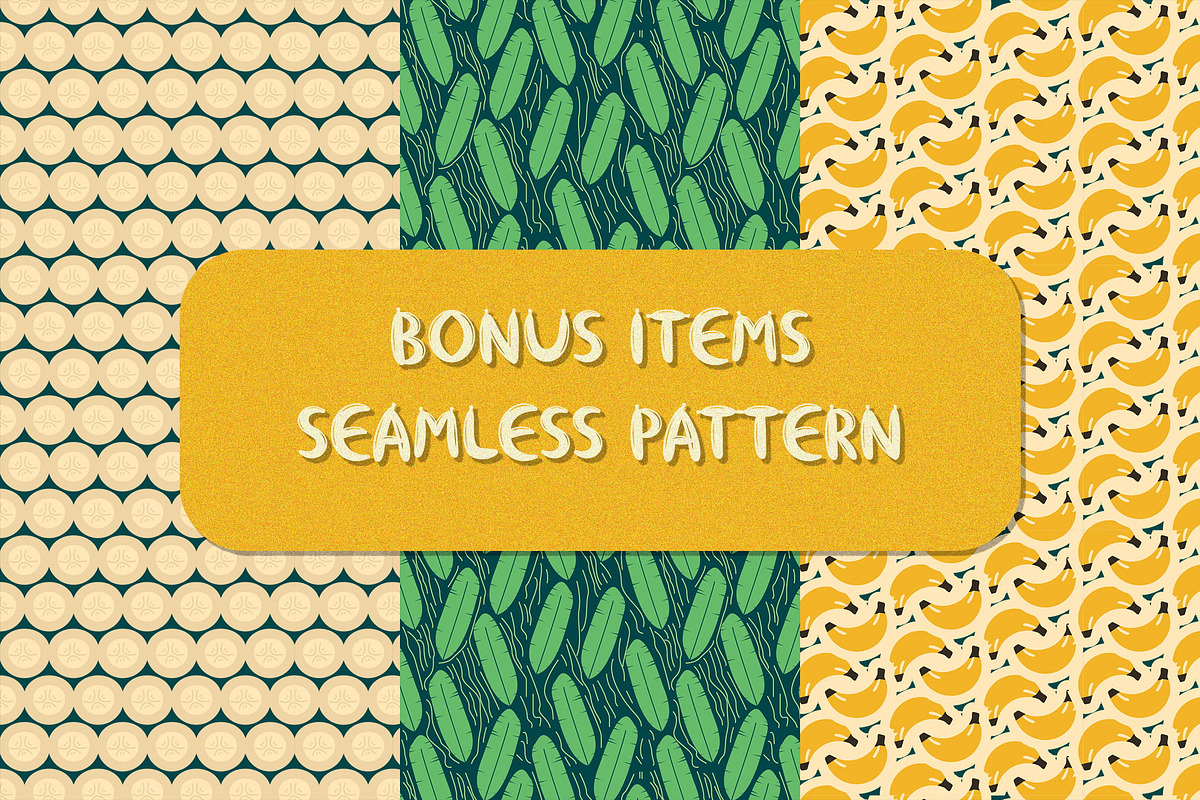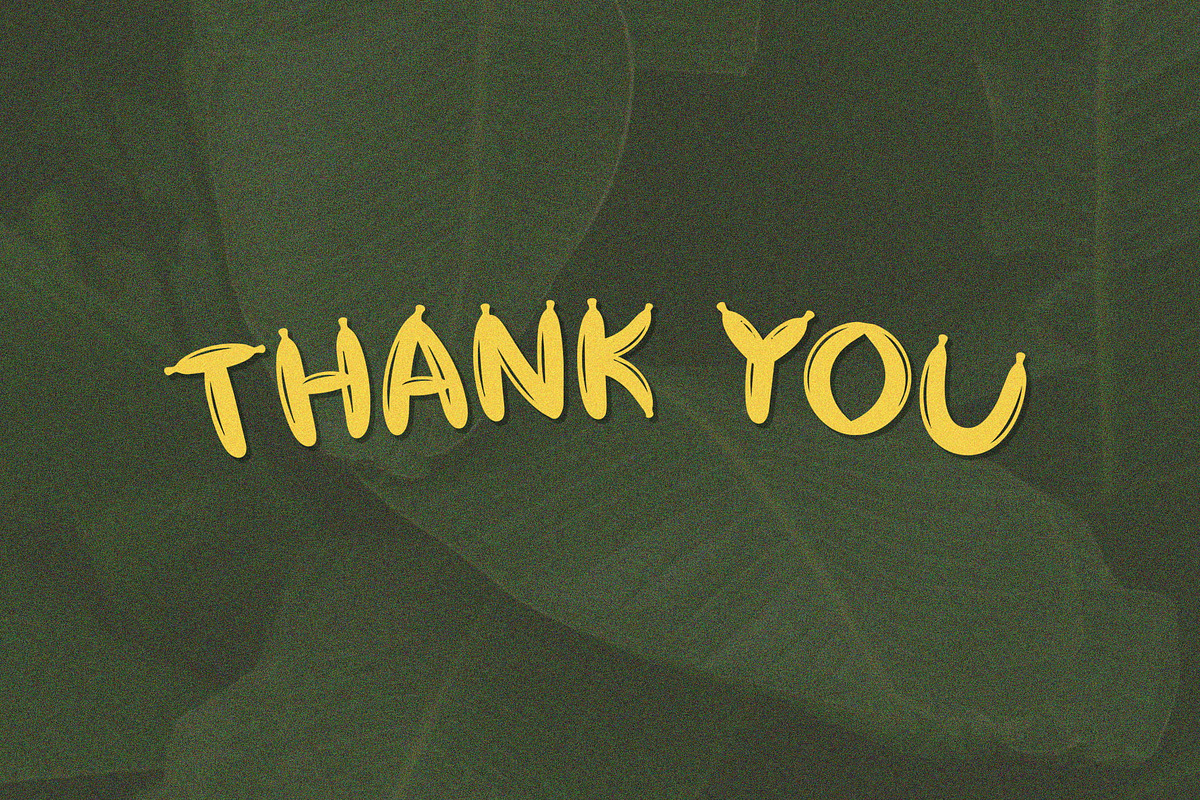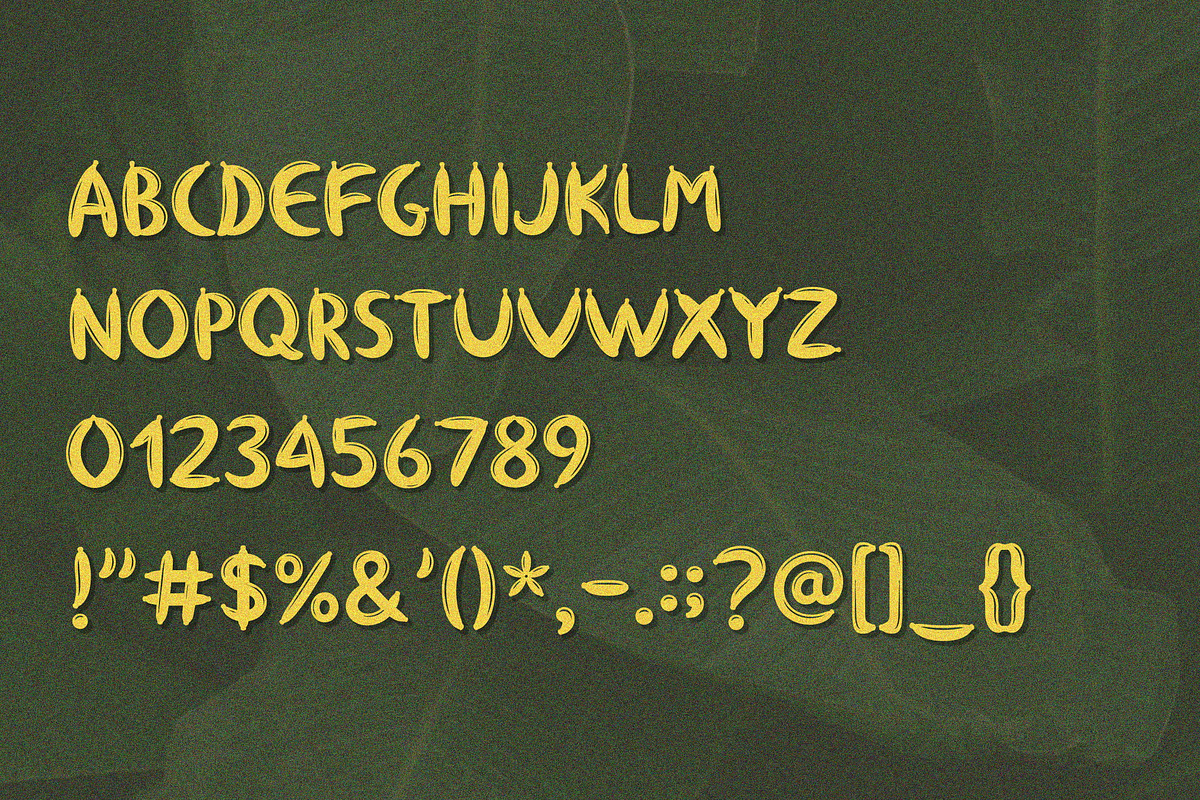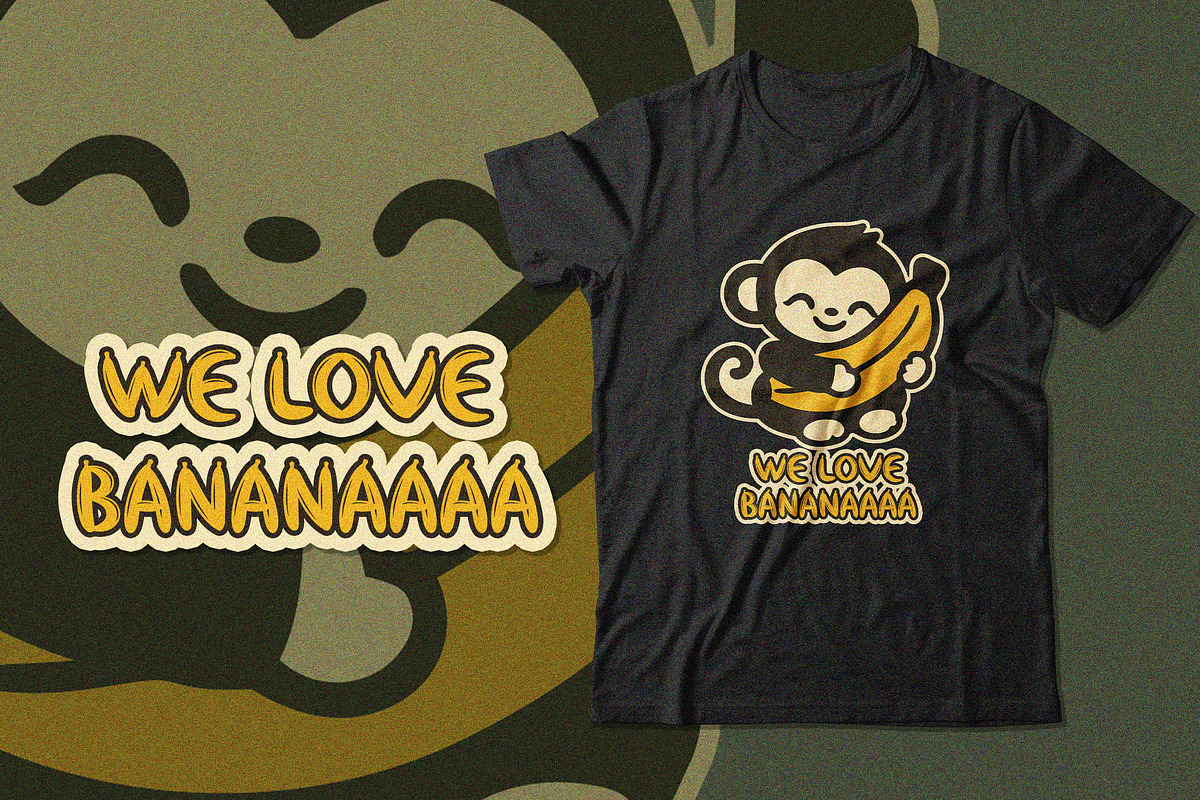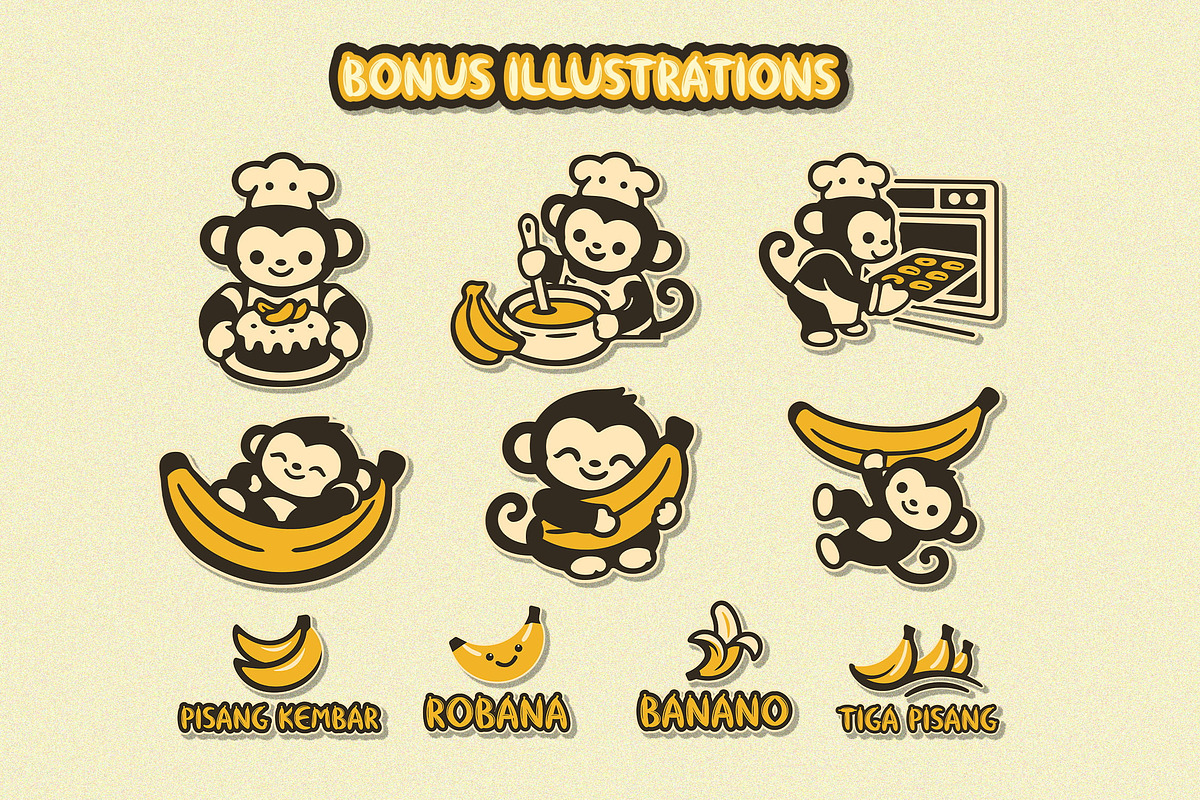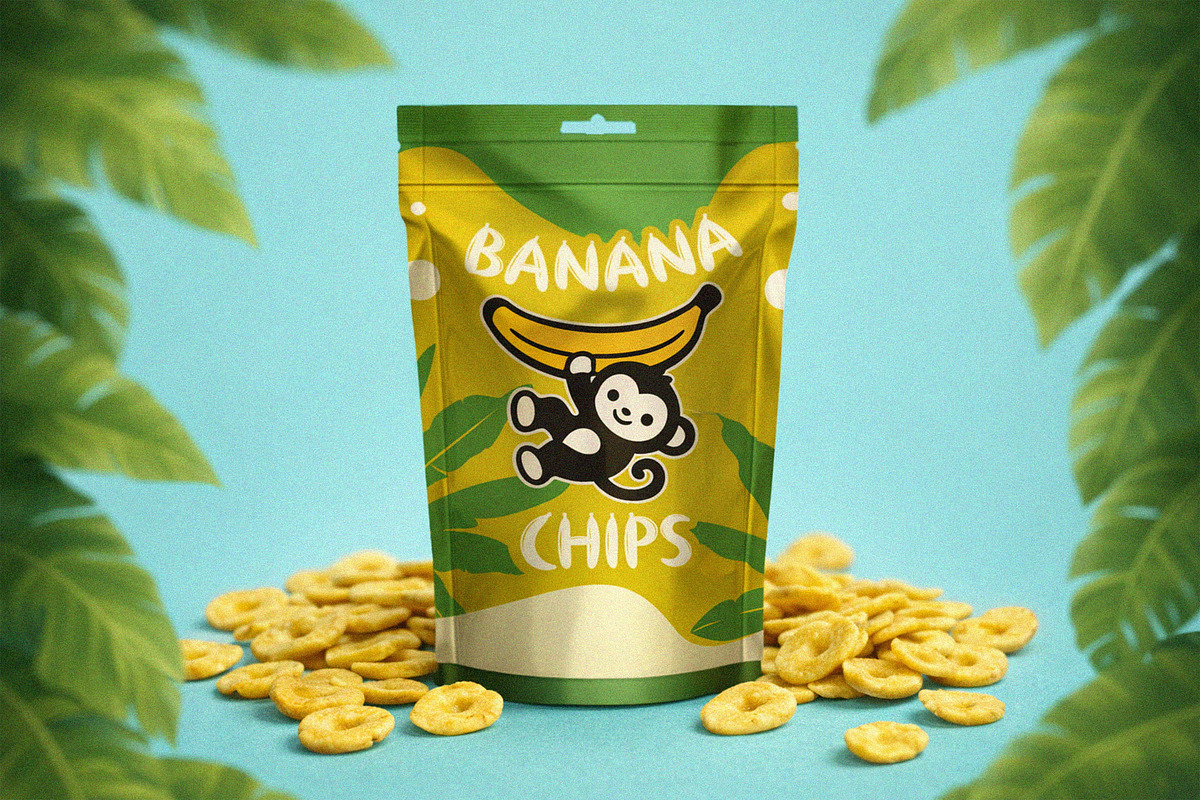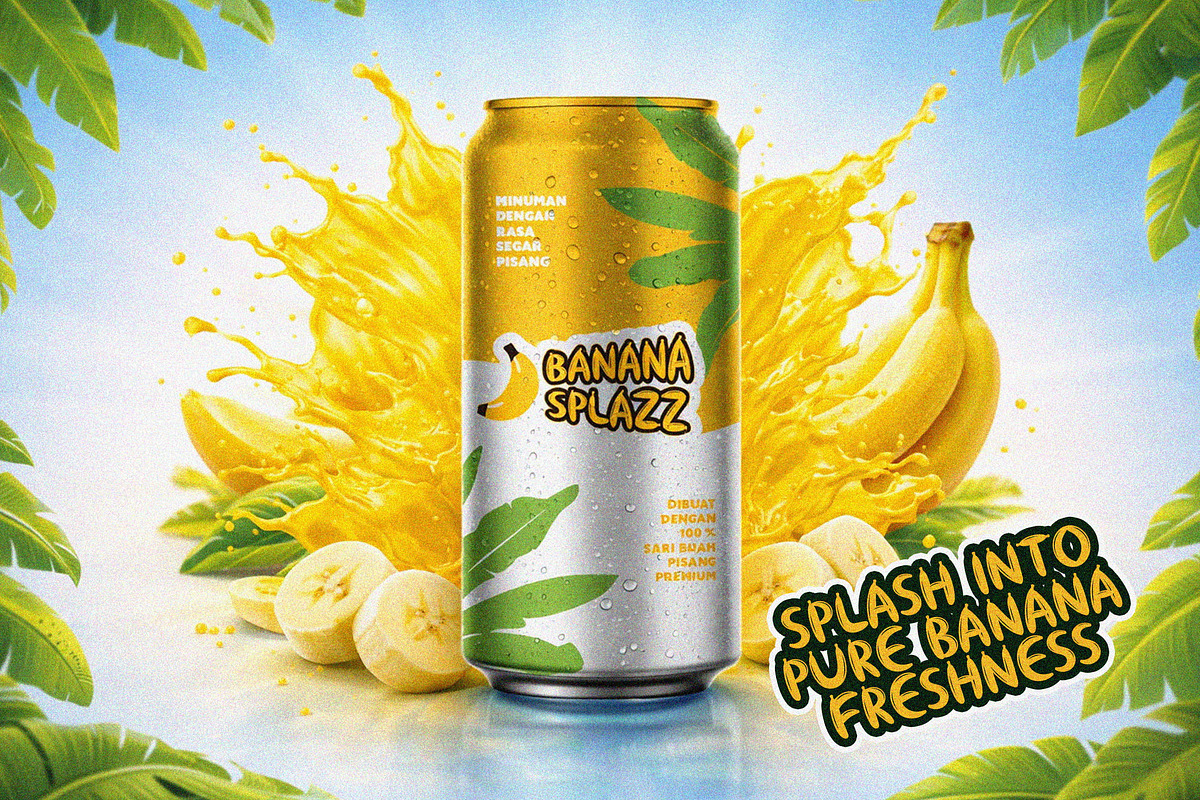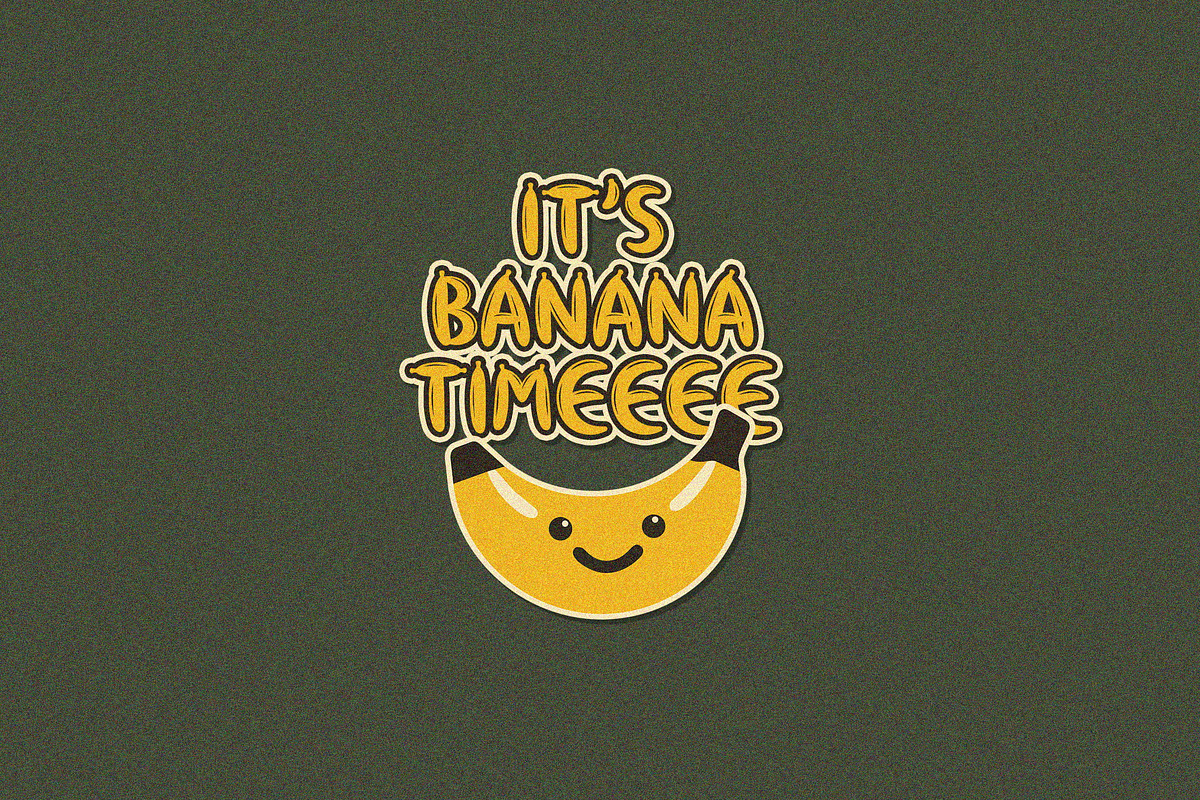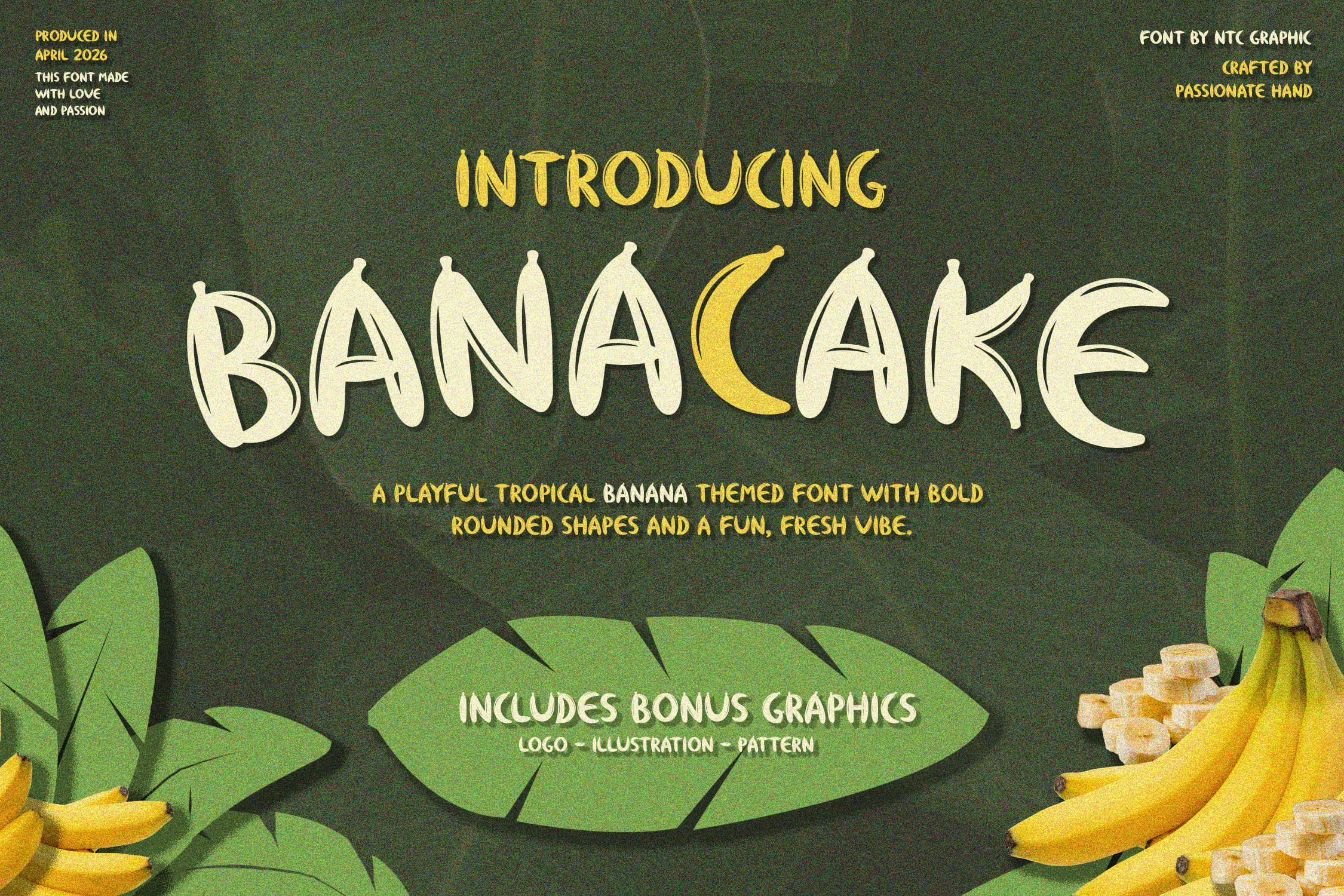
Banacake – Playful Banana Font
Banacake – Playful Tropical Banana Font + Bonus Graphics
Banacake is a playful tropical banana-themed font designed with bold, rounded shapes and a fun, fresh vibe. Inspired by the natural curves of bananas, this typeface brings a cheerful and eye-catching personality to your designs.
Perfect for branding, logo design, packaging, t-shirt design, kids products, food & beverage branding, tropical themes, summer designs, and playful typography projects, Banacake helps your work stand out with its unique and organic letterforms. This font is especially suitable for designers looking to create banana-themed visuals, fruity branding, snack packaging, or fun merchandise.
Bonus Graphics Included
- Cute banana mascot illustrations
- Hand-drawn banana elements
- Seamless tropical patterns
- Logo & badge templates
All bonus graphics are designed to perfectly match the font style, making it easy to create cohesive and professional designs.